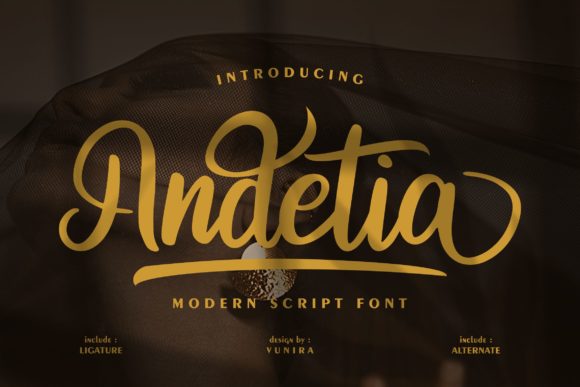
The Designer’s Delight: Andetia Font
I’ll never forget the struggle I faced while working on a branding project for a trendy boutique hotel. My client wanted a font that exuded confidence, nostalgia, and a touch of playfulness. I scoured the internet, tried countless fonts, but nothing seemed to fit the bill. That’s when I stumbled upon Andetia Font, and it was love at first sight! 💕
Andetia is a gorgeous and bold handwritten font, crafted to give your headlines and logotype projects a stylish touch. This font reads as strong, confident, and dynamic and can add tons of nostalgic character to your designs.
• ✨ Unique Character: Andetia has a distinct personality that sets it apart from other fonts.
• ✅ High Versatility: It works beautifully for both headlines and logotypes.
• 💯 Easy to Read: Despite its bold nature, Andetia remains surprisingly legible.
• 🎨 OpenType Features: The font comes with a range of OpenType features, including stylistic alternates and glyphs.
While Andetia is an amazing font, there are a few things to keep in mind: 🤔
• ⚠️ Limited Use in Body Text: Due to its bold nature, Andetia might not be the best choice for lengthy body text.
• ⚠️ Requires Attention to Kerning: Some users have reported issues with kerning, especially when using the font at smaller sizes.
The Story Behind Andetia
Andetia was designed by a talented typographer who drew inspiration from vintage signage and classic handwriting. The goal was to create a font that felt both nostalgic and modern, with a unique character that would make it stand out in any design. 💡
Author Vunira
Q: What makes Andetia a good choice for logotypes?
A: Andetia’s bold, confident nature and unique character make it an excellent choice for logotypes that need to stand out.
Q: Can I use Andetia for body text?
A: While Andetia is legible, its bold nature makes it better suited for headlines and titles. For body text, consider a complementary font that’s easier to read.
Q: Does Andetia support OpenType features?
A: Yes, Andetia comes with a range of OpenType features, including stylistic alternates and glyphs, which can add more character to your text.
Q: Is Andetia suitable for digital use?
A: Absolutely! Andetia works beautifully for both print and digital designs, making it a versatile addition to your font library.